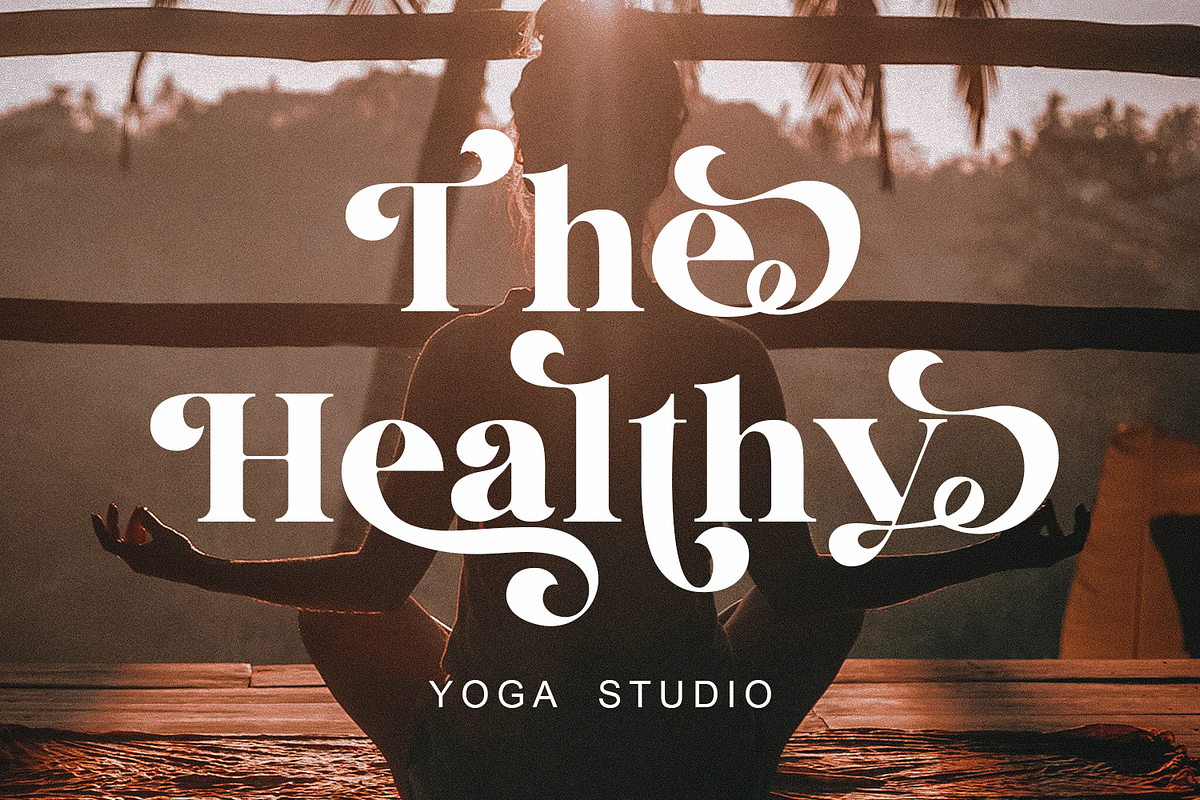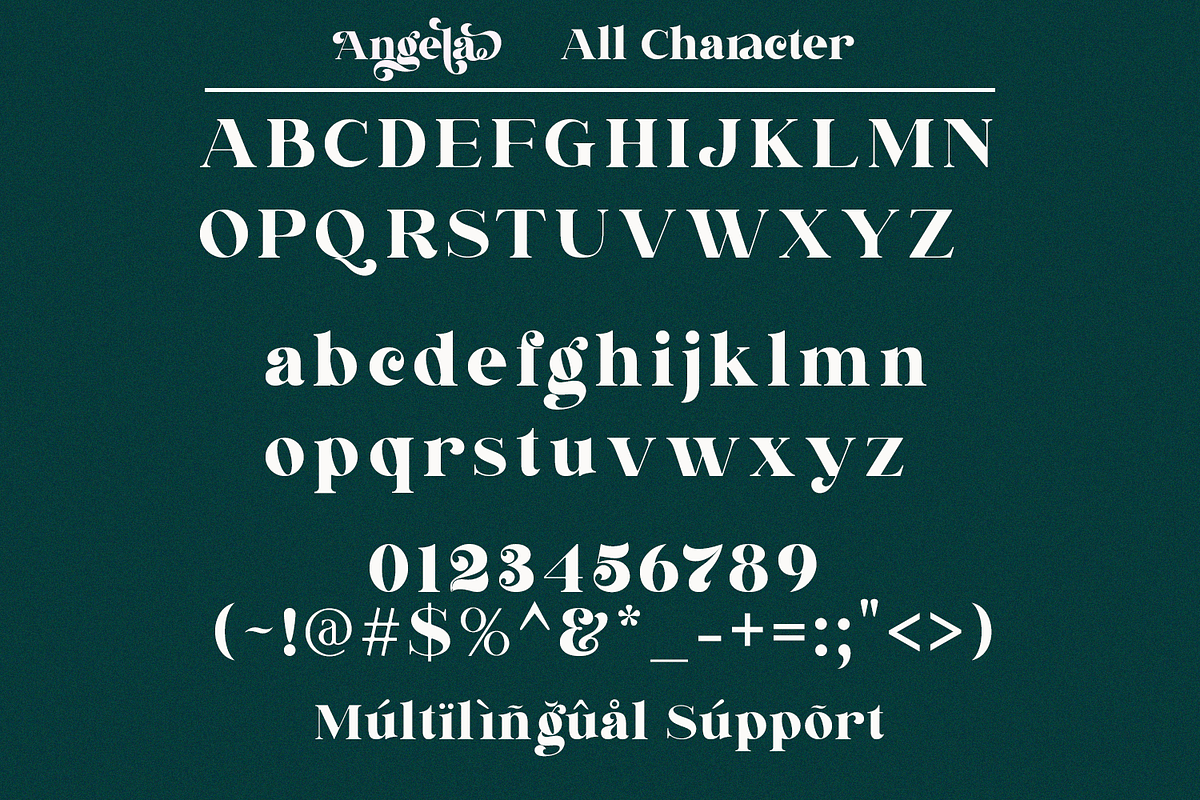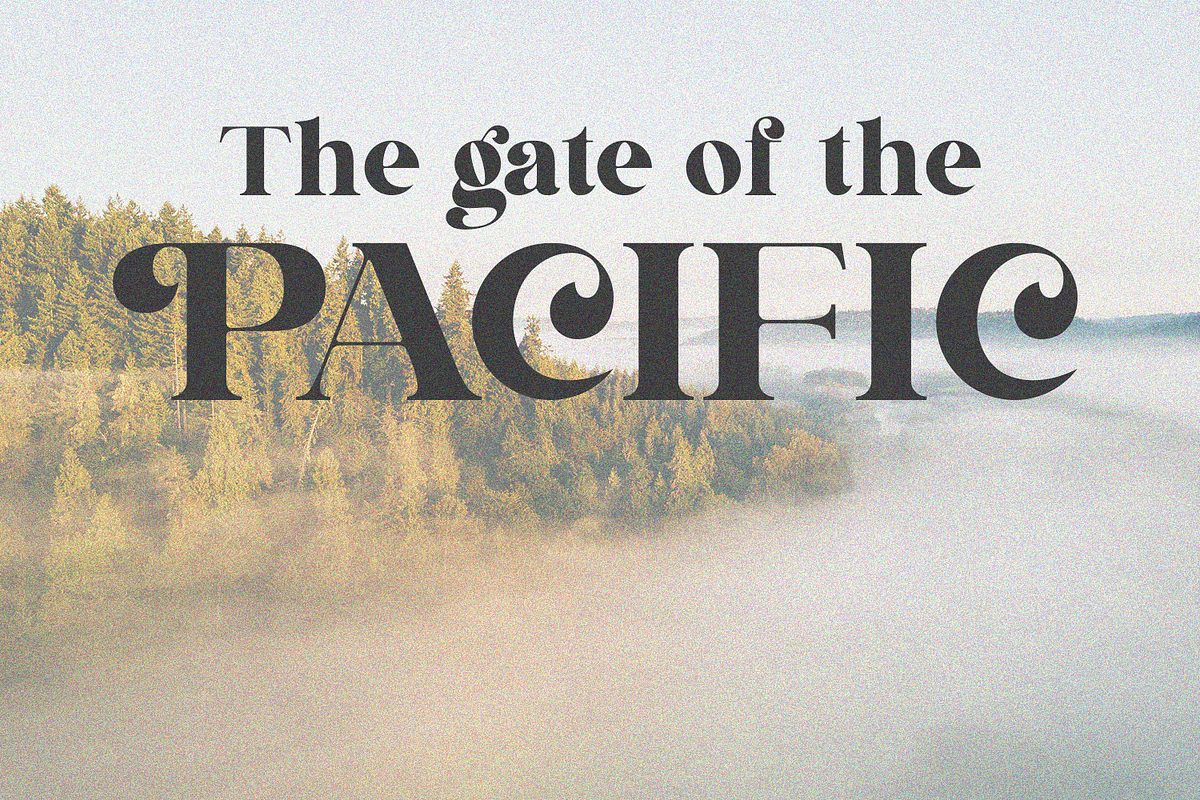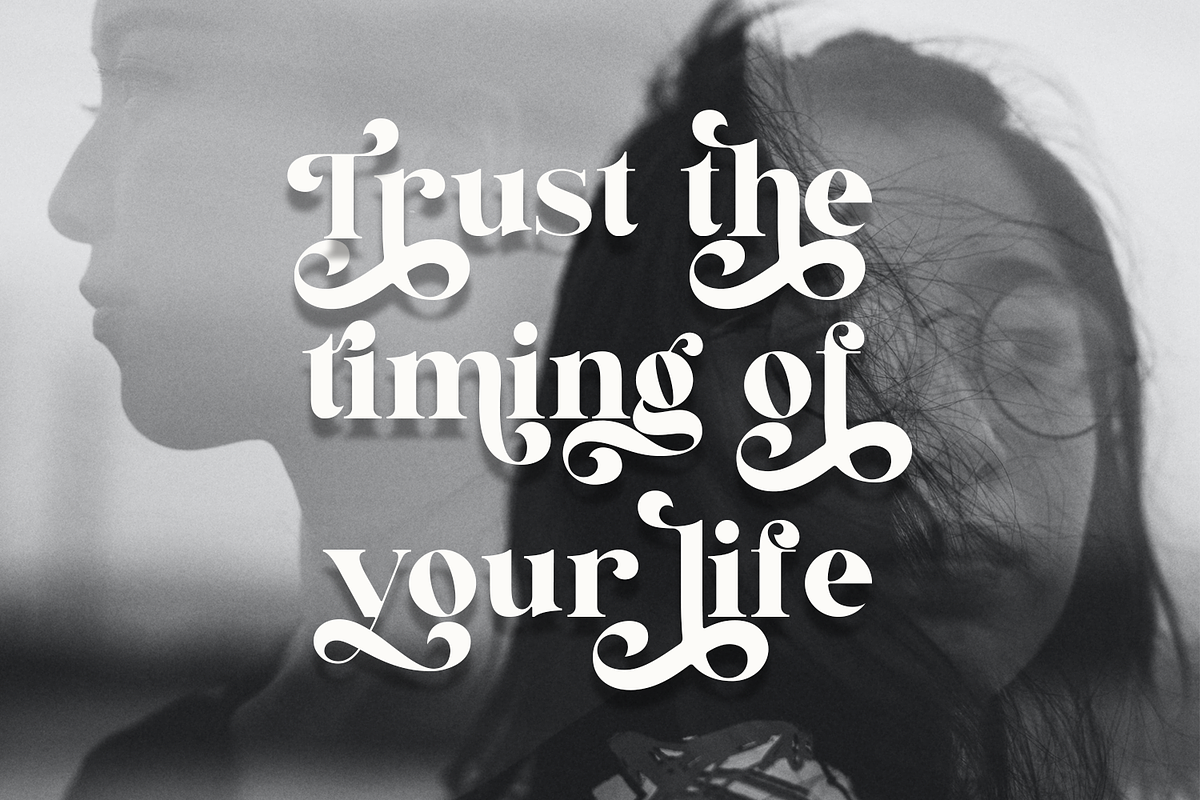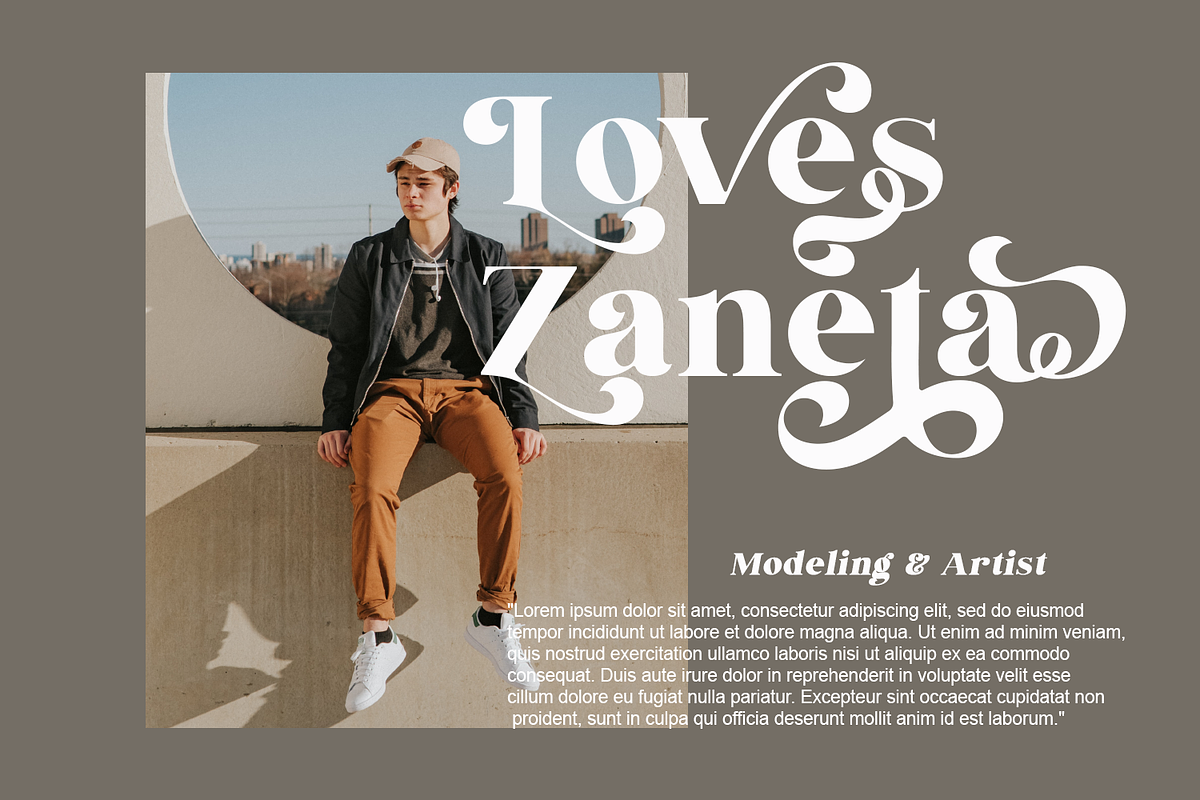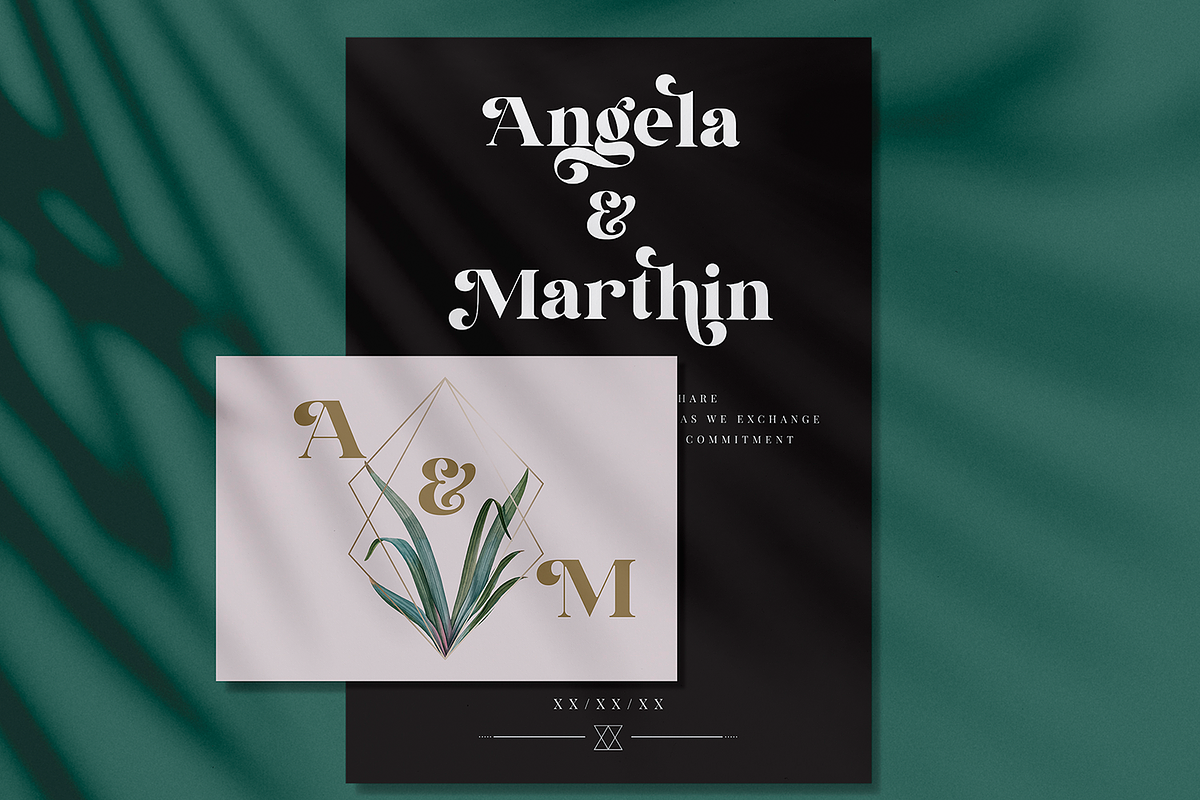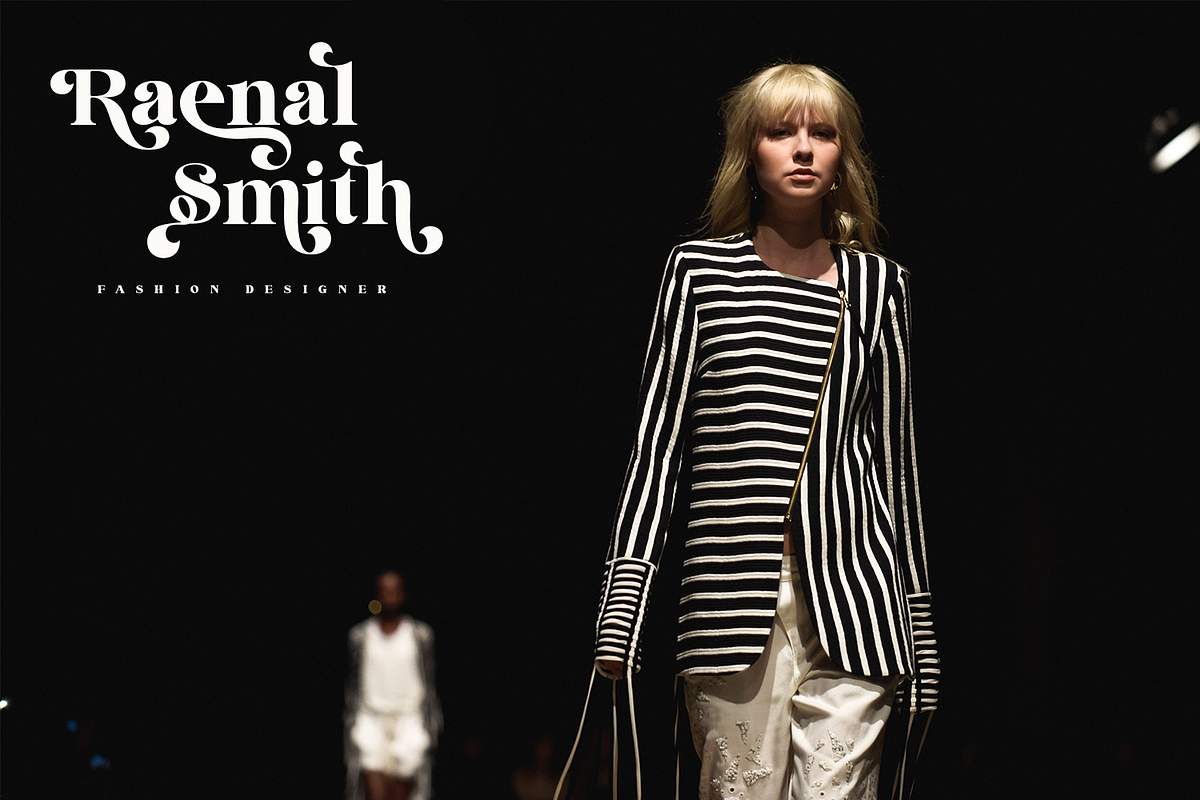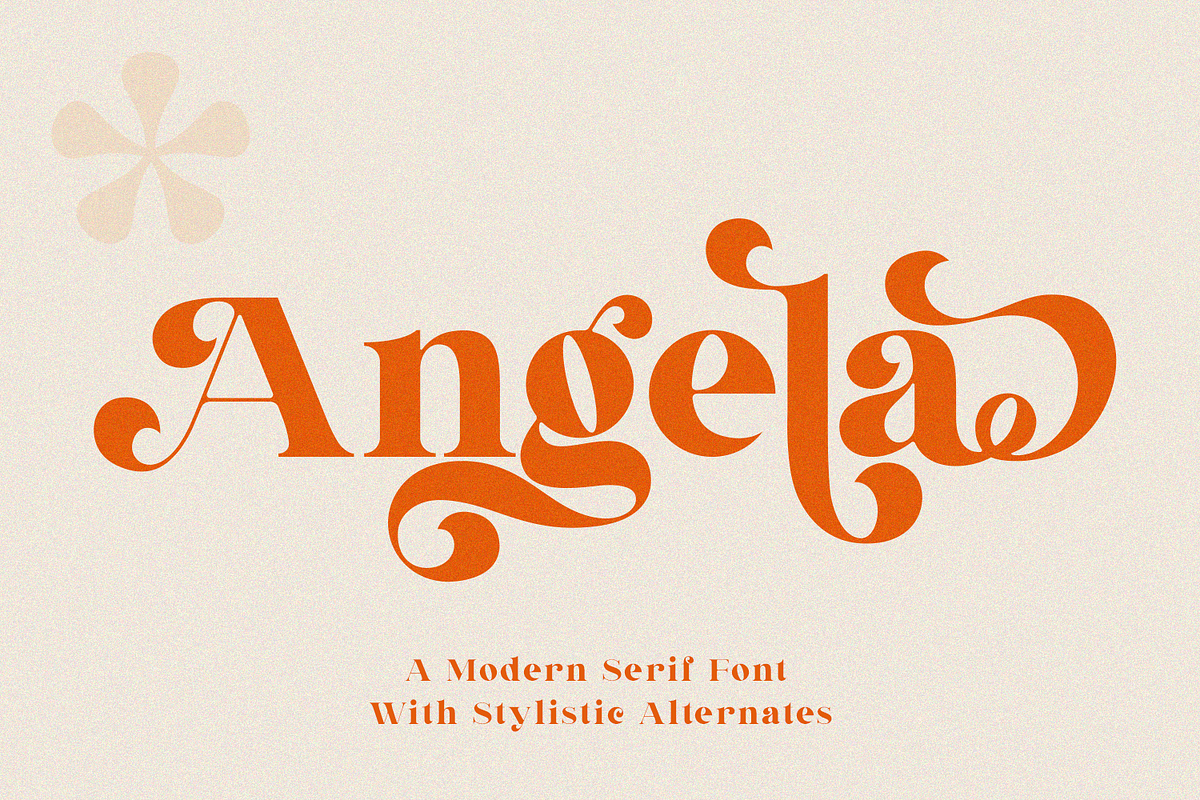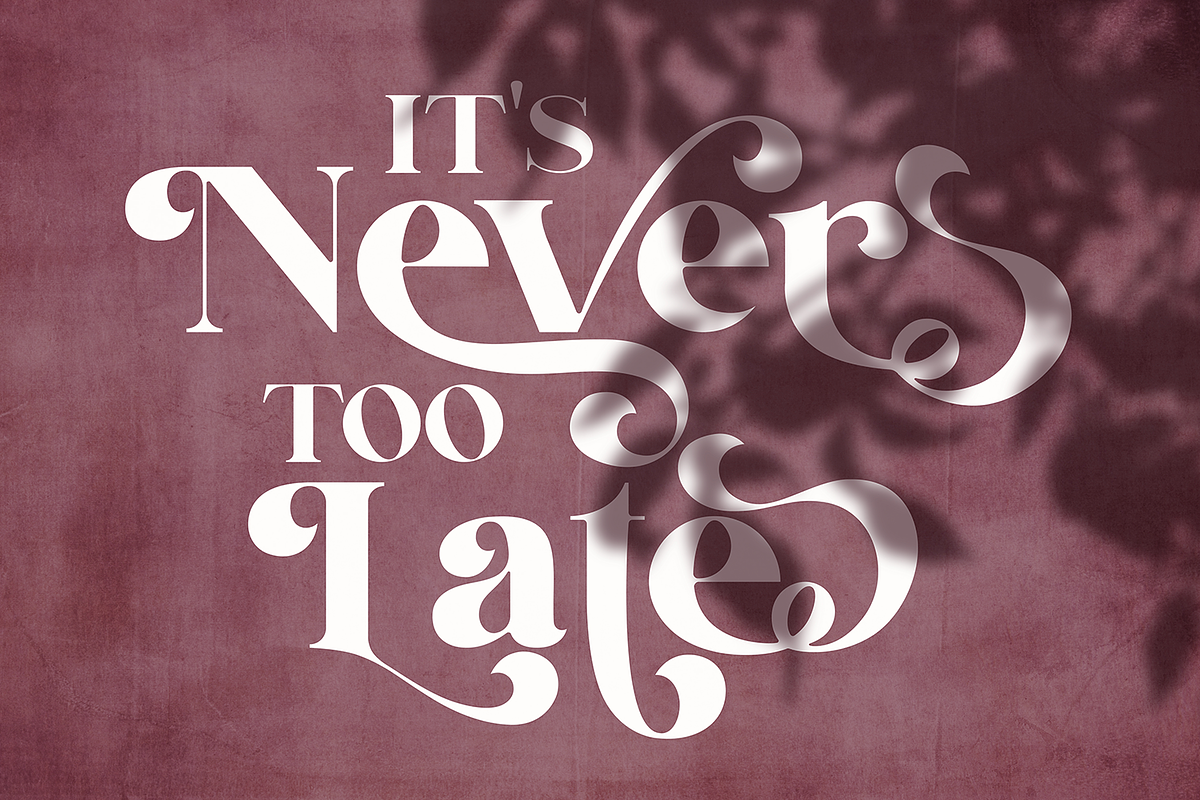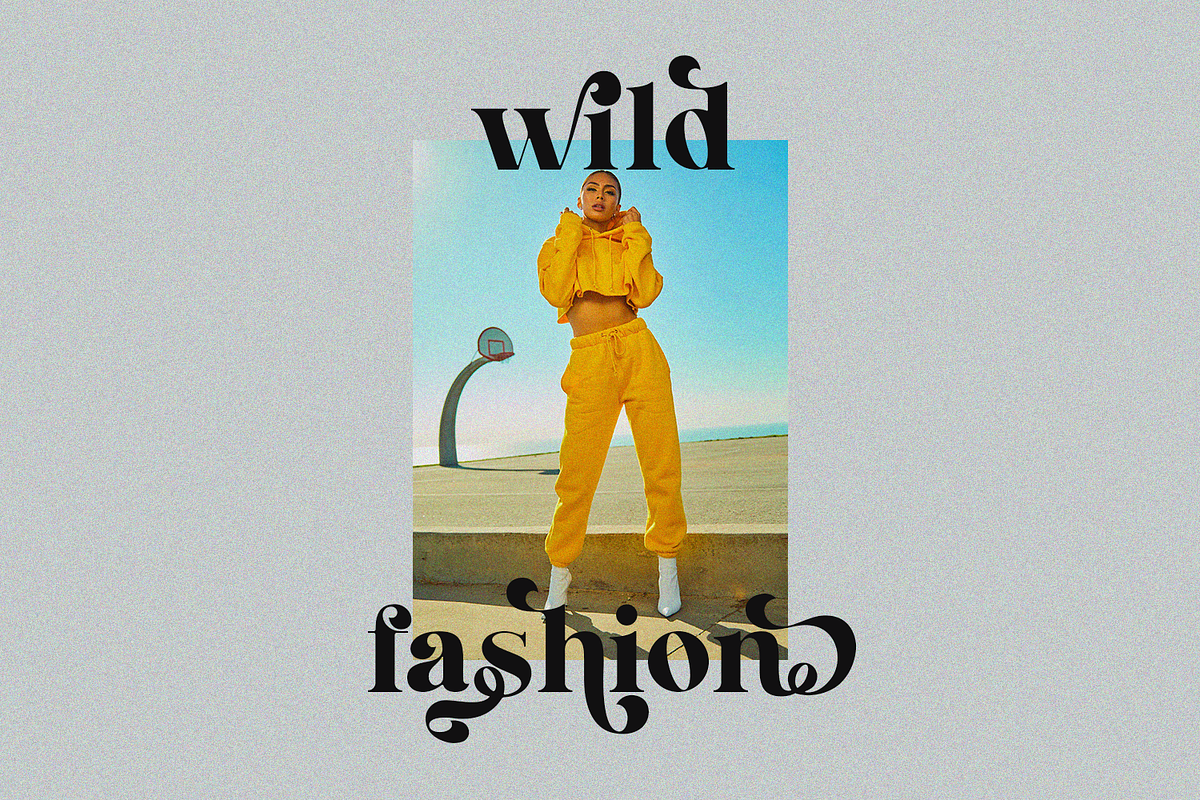
Angela
Angela is a modern and elegant serif font that has beautiful and unique stylistic alternates. This font is perfect for advertising, branding, logotypes, packaging, titles, headlines, and editorial designs.